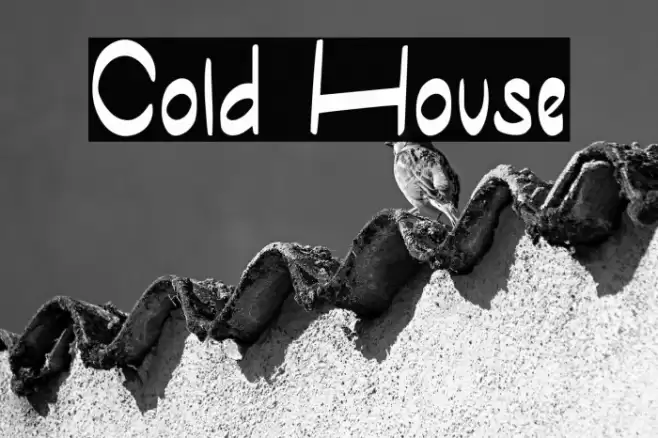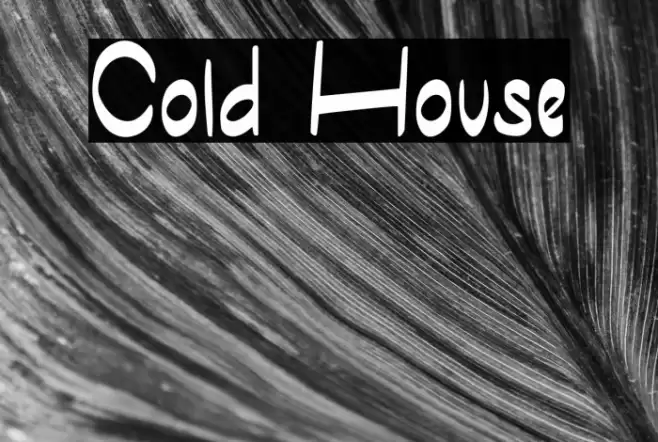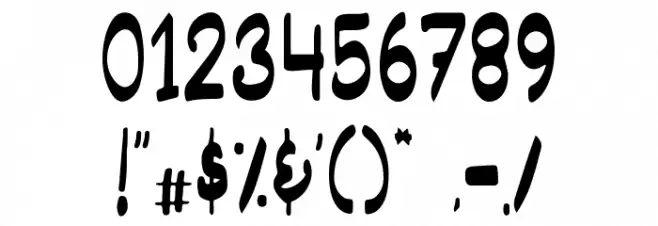
Cold House Font
Cold House Description
This font features a playful and quirky design, characterized by its irregular and slightly whimsical letterforms. The uppercase letters exhibit a mix of sharp angles and rounded edges, giving them a unique and dynamic appearance. The lowercase letters maintain a consistent style, with some characters displaying exaggerated curves and strokes that add to the font's charm. The numerals are bold and easily legible, while the special characters integrate seamlessly with the overall style. This font's distinct personality makes it suitable for creative and informal applications.
A playful and quirky font with irregular, whimsical letterforms from Comic fonts.
- Proposed Projects: Ideal for children's books, playful branding, greeting cards, and creative posters.
- Overall Style: Playful